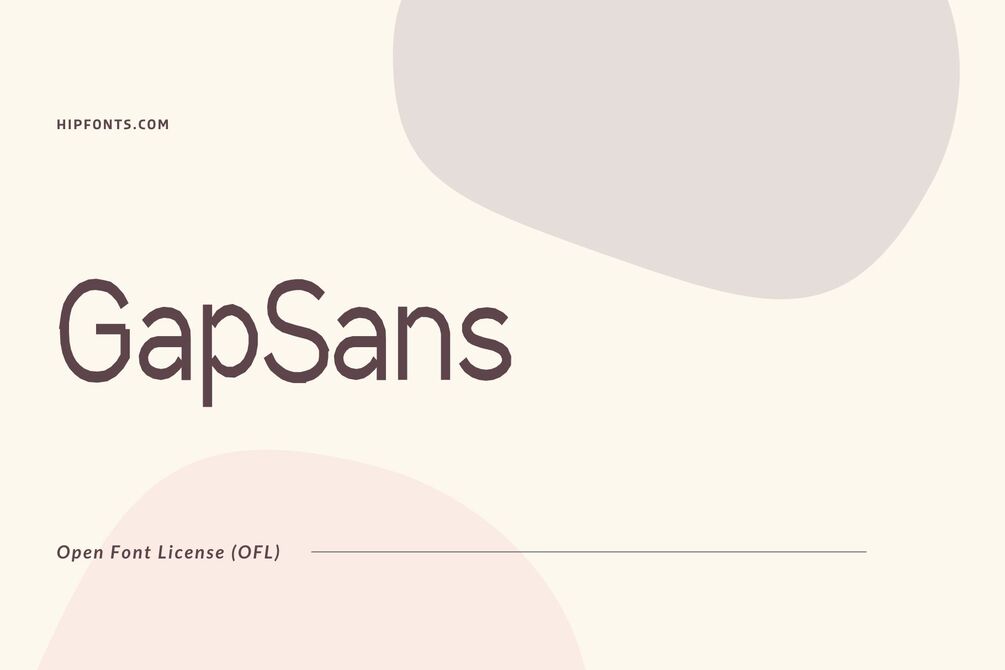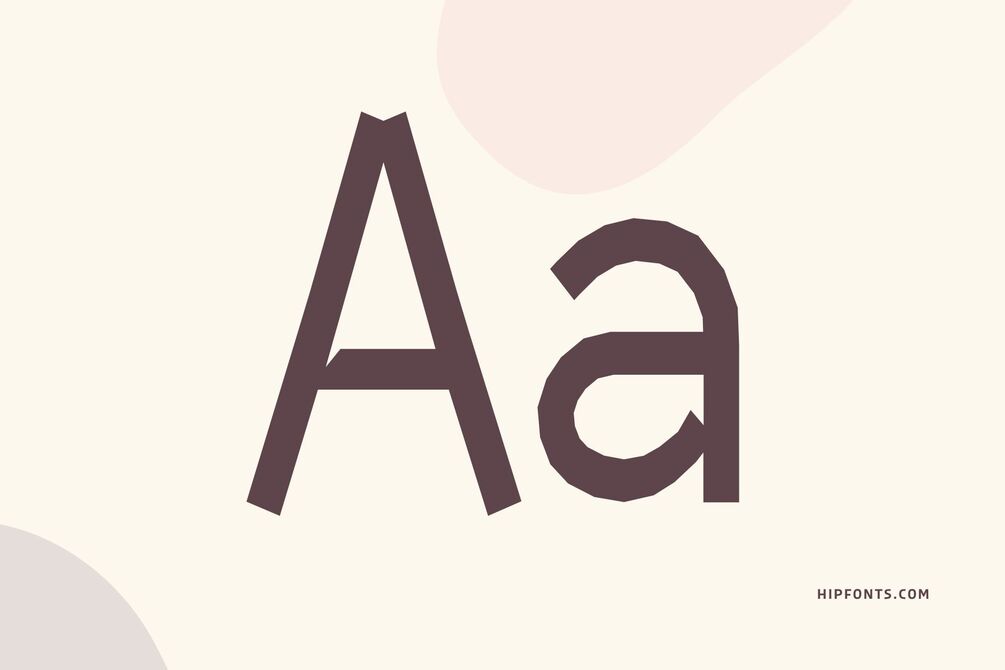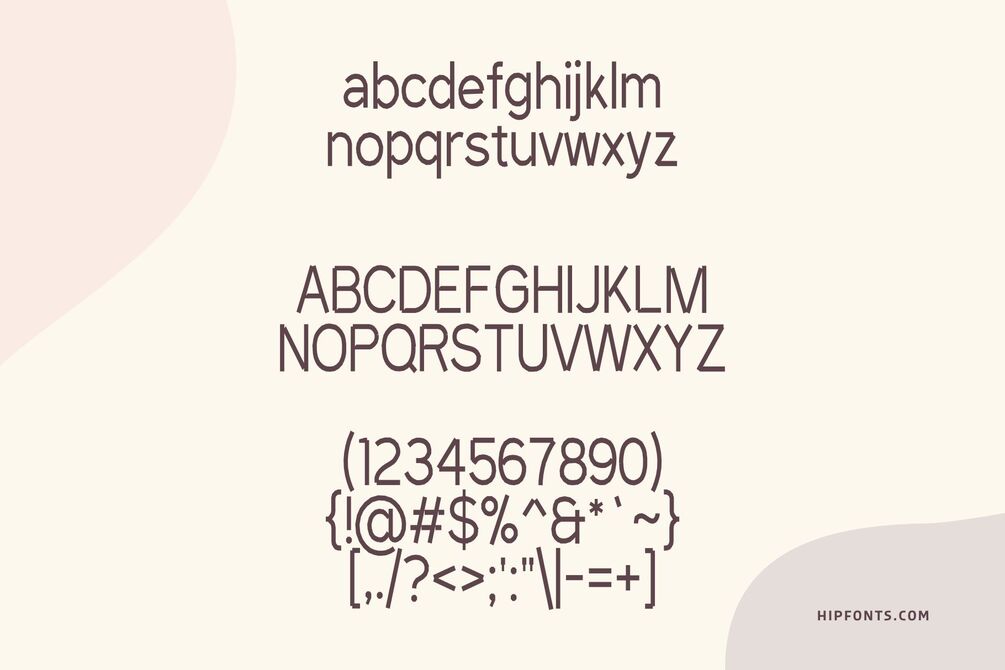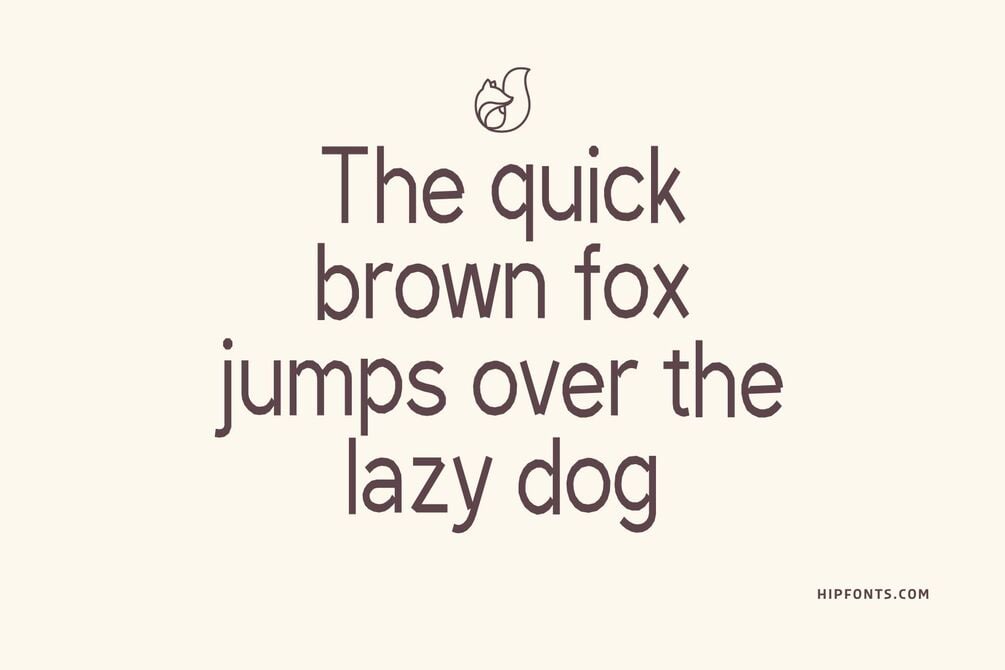
GapSans
GapSans is a modern and versatile font that strikes a balance between simplicity and sophistication. It is designed by Alexandre Liziard and Etienne Ozeray.
Its clean lines and minimalistic design give it a contemporary and timeless appeal, making it suitable for a wide range of design projects. GapSans's clarity and legibility make it an excellent choice for both print and digital applications, ensuring clear communication of your message.
This font's open letterforms and generous spacing contribute to its readability, even at small sizes or in challenging environments. It adapts well to various design contexts, from editorial design and advertising to packaging and user interfaces. GapSans's neutrality and versatility make it a reliable and go-to option for designers who value simplicity and clarity in their typographic choices.